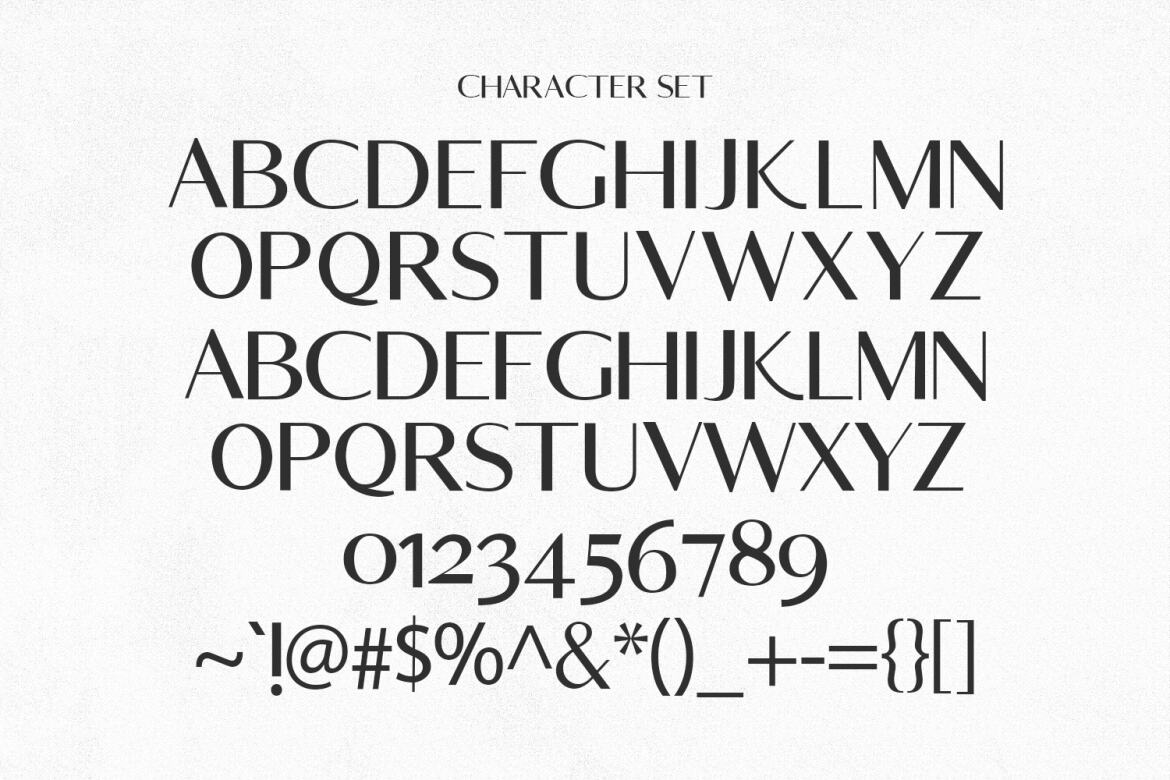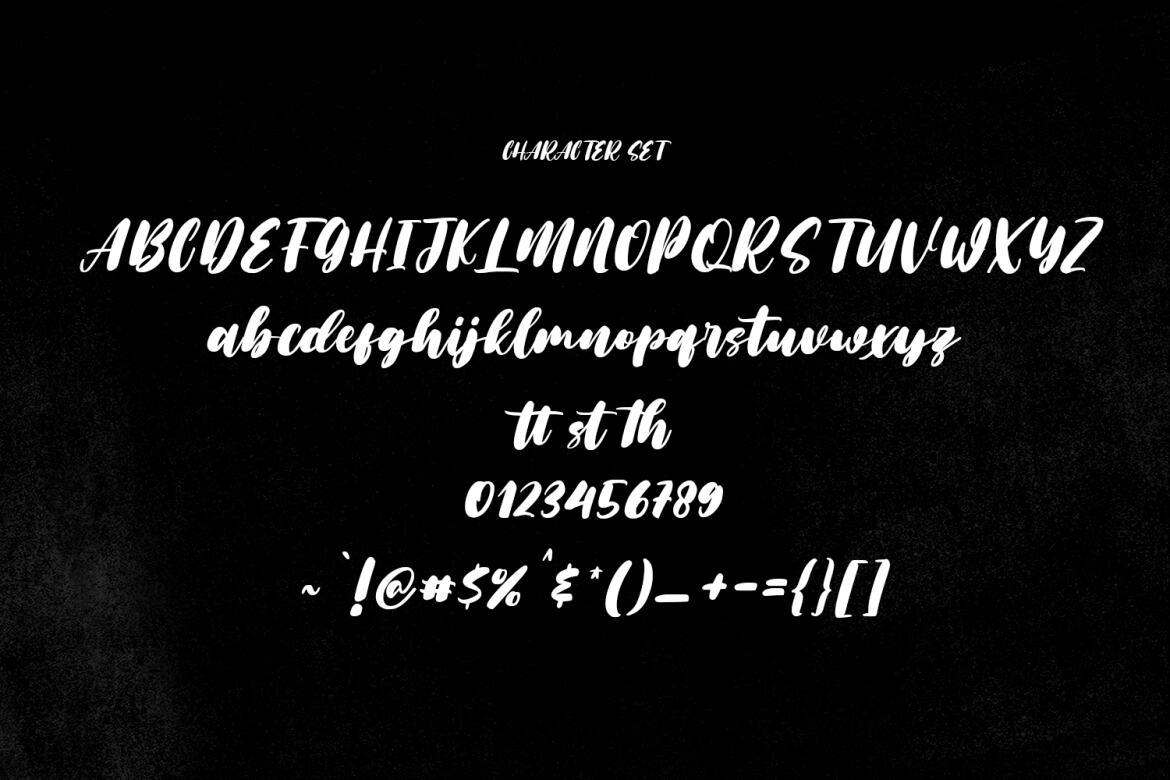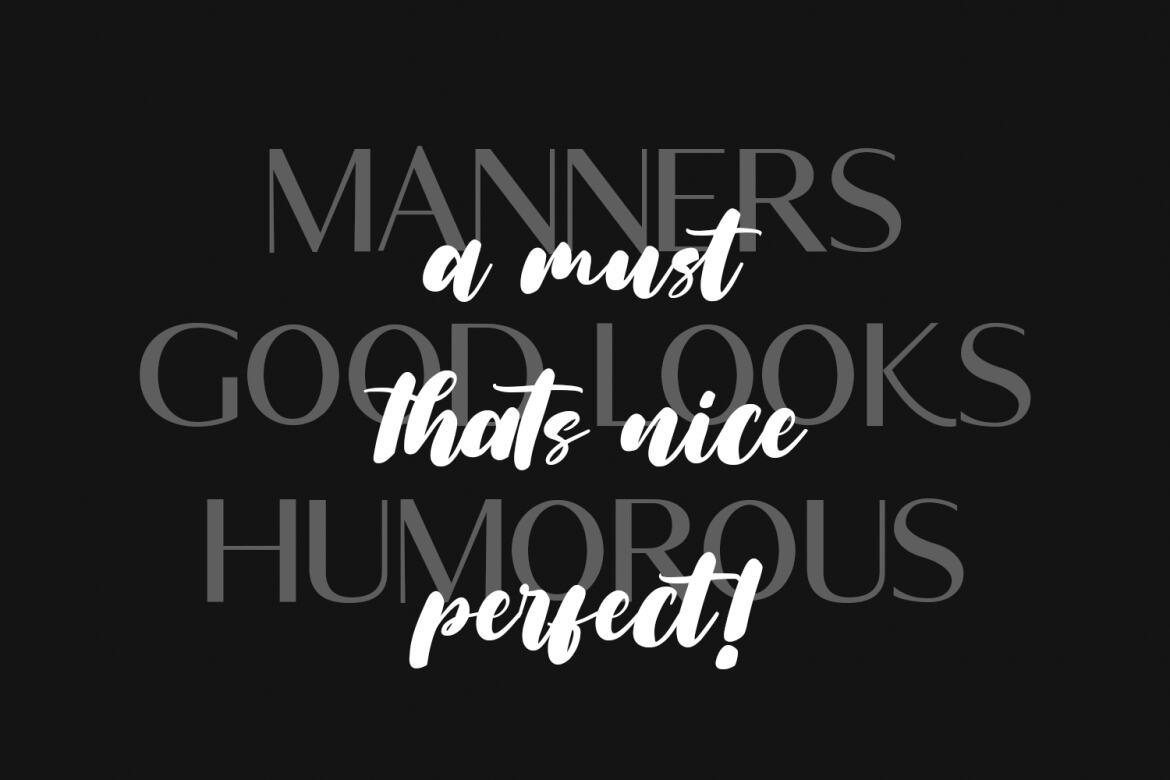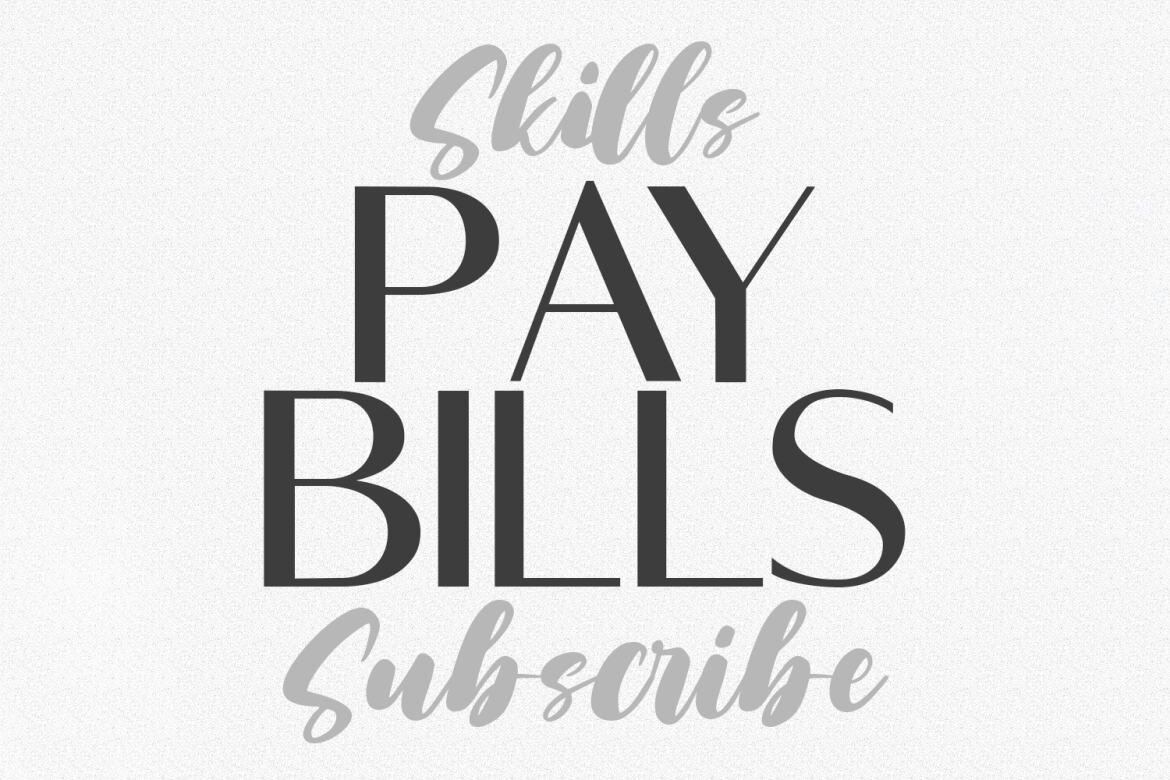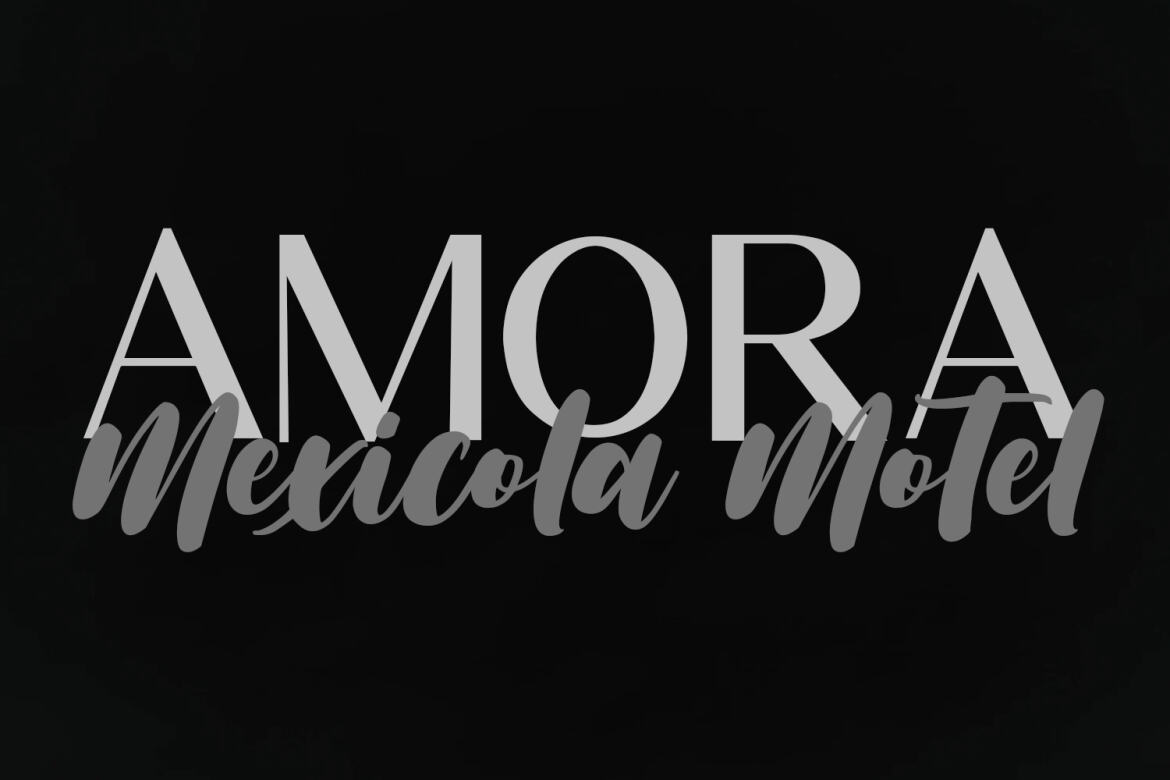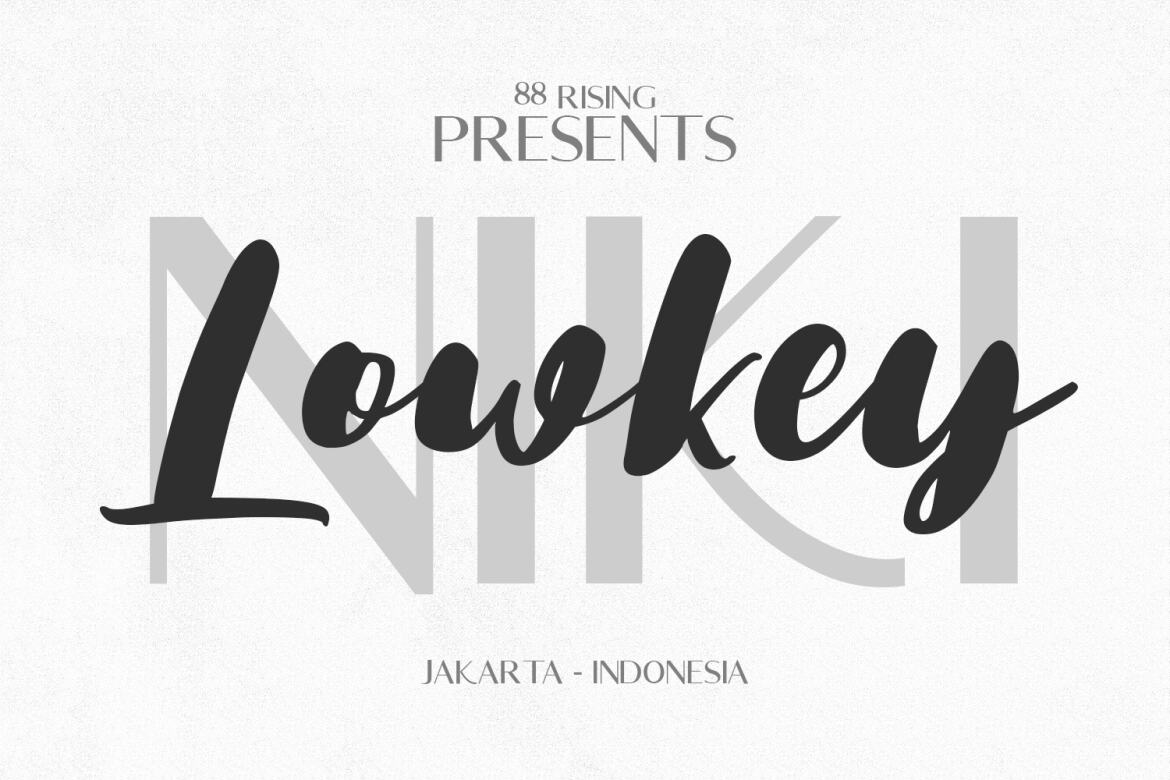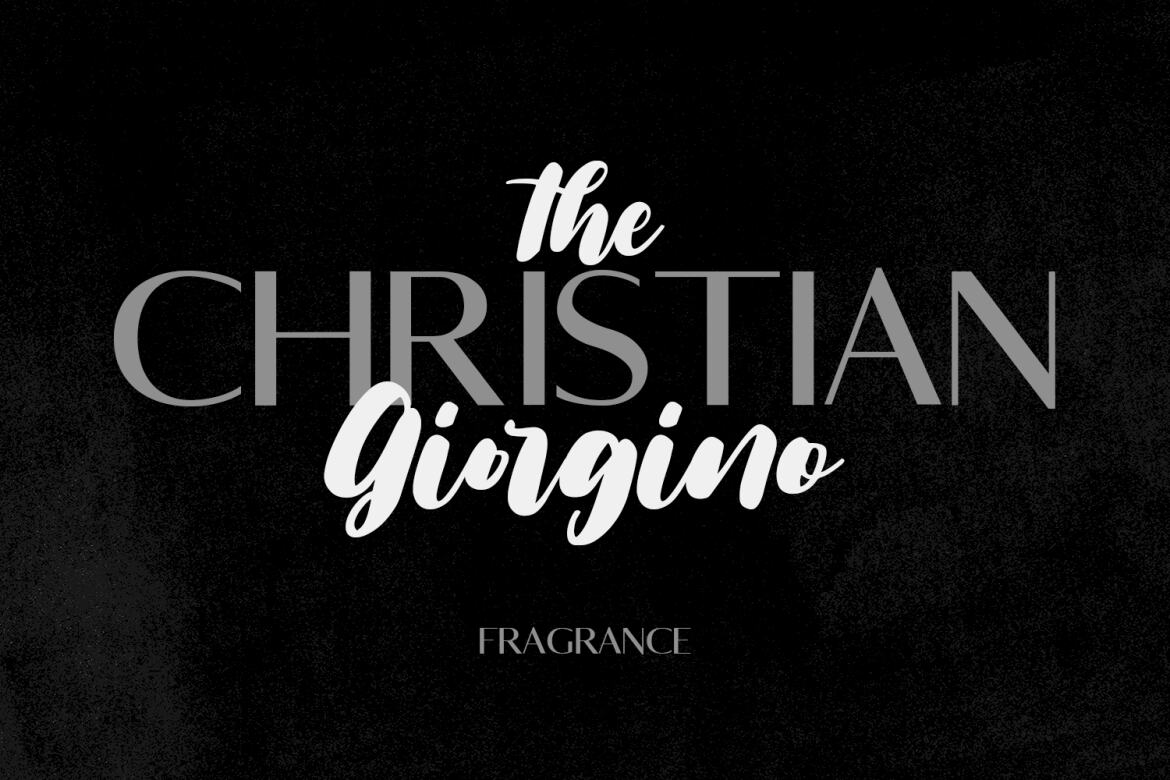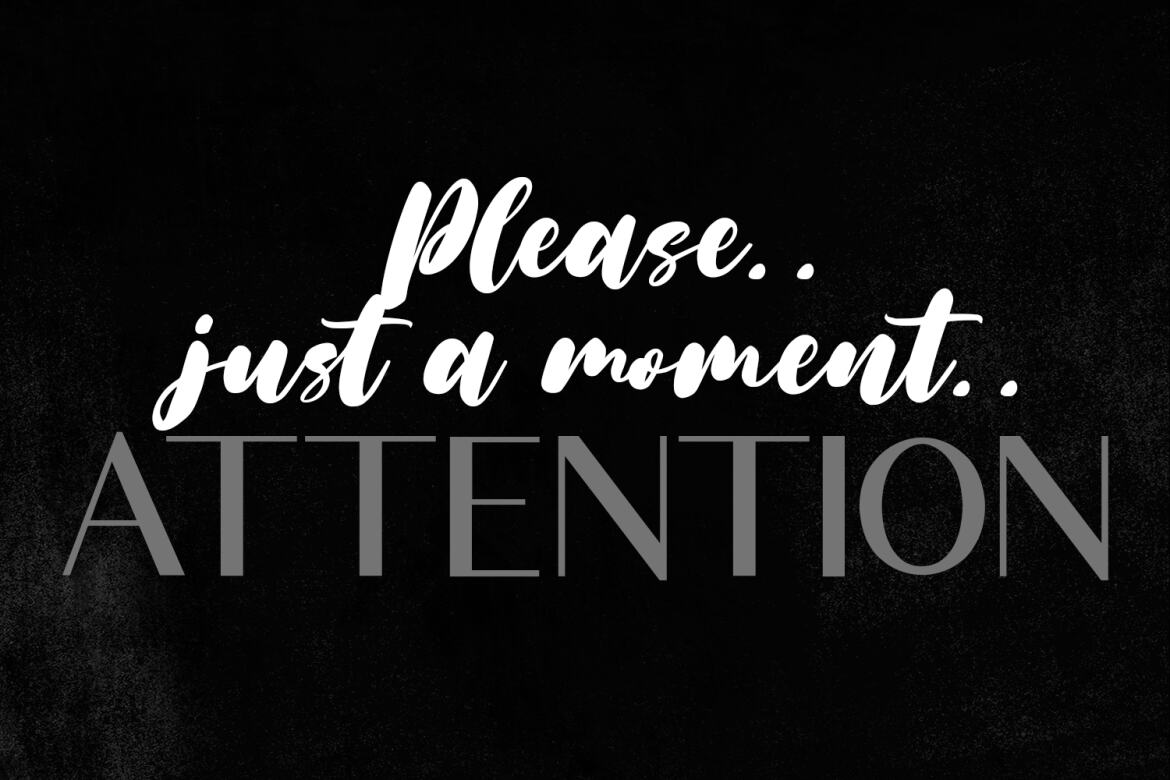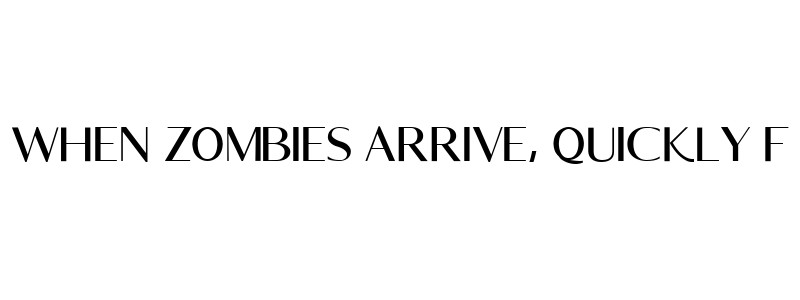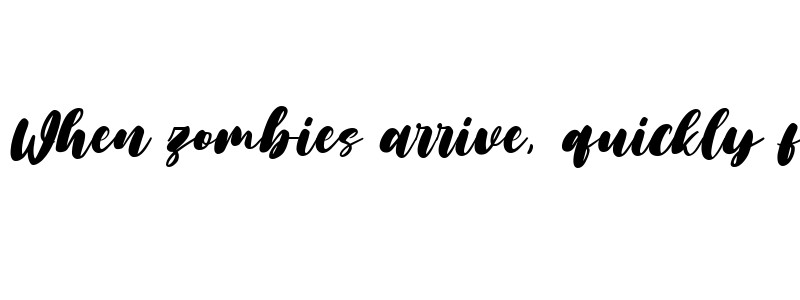
Silver Rainbow FREE Font Duo
Silver Rainbow Sans
Silver Rainbow
Silver Rainbow is a modern casual script font. With bold high contrast stroke, fun character with a bit of ligatures and alternates. To give you an extra creative work. Silver Rainbow font support multilingual more than 100+ language. This font is good for logo design, Social media, Movie Titles, Books Titles, a short text even a long text letter and good for your secondary text font with sans or serif. Make a stunning work with Silver Rainbow font.